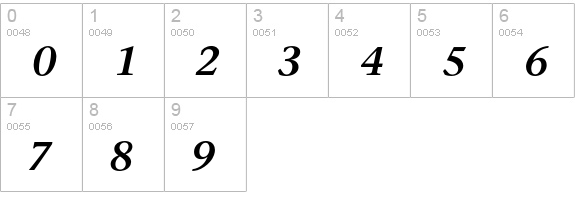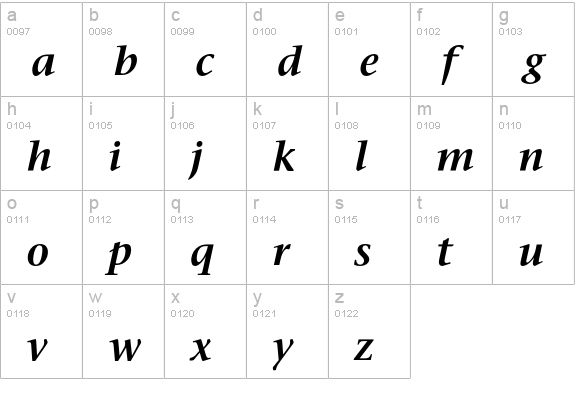
Stone Serif Semi Bold Italic Font Details
Stone Serif Semi Bold Italic is a strong, high-contrast, italic variant in the Stone typeface family \xE2\x80\x94 well suited to headlines, attention-grabbing titles, and strong calls-to-action.
Stone Serif Semi Bold Italic is a striking and elegant typeface that exudes a sense of modern sophistication. Its bold and slightly slanted letters convey a strong presence while maintaining a touch of refinement. The semi-bold weight adds a sense of authority and impact to any text it graces. This versatile font is perfect for a wide range of design projects, from branding and advertising to editorial layouts and signage. Its timeless appeal makes it a go-to choice for designers looking to make a statement with their typography. And the best part? Stone Serif Semi Bold Italic is available for free download at FontsMarket.com. Simply visit the website to access this beautiful font and enhance your designs with its distinctive style. Don't miss out on the opportunity to add this premium typeface to your collection without spending a dime.